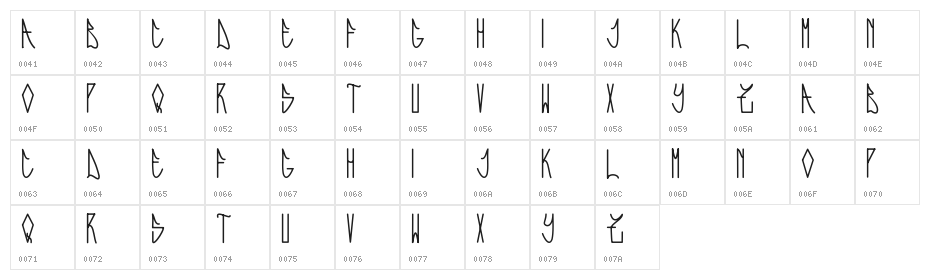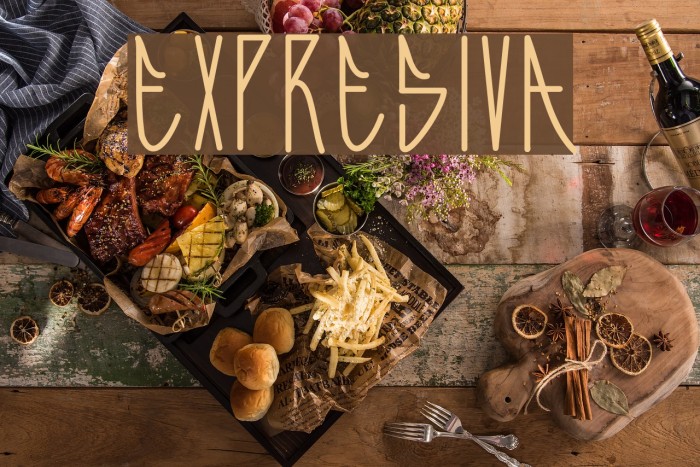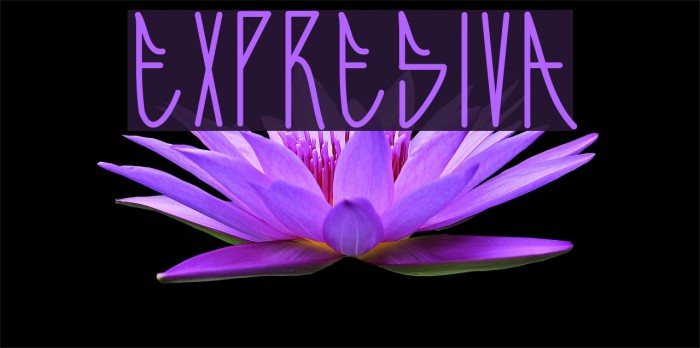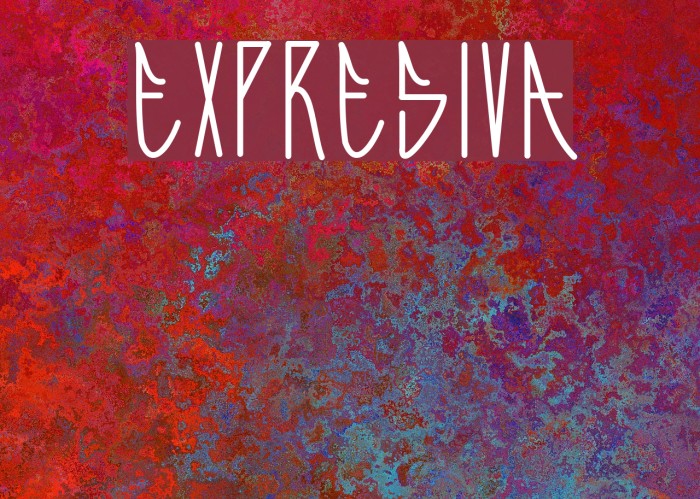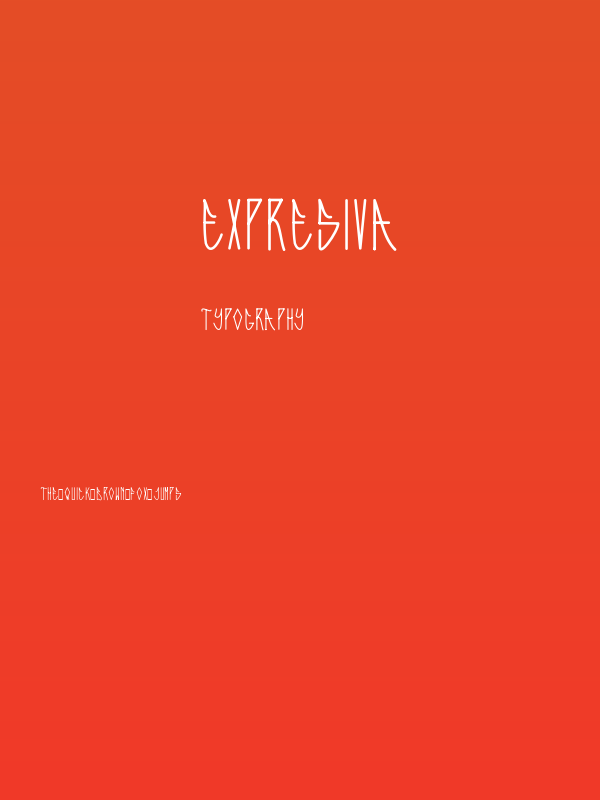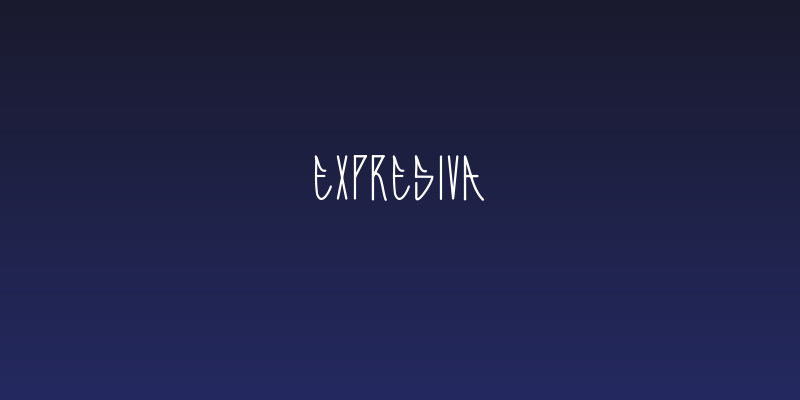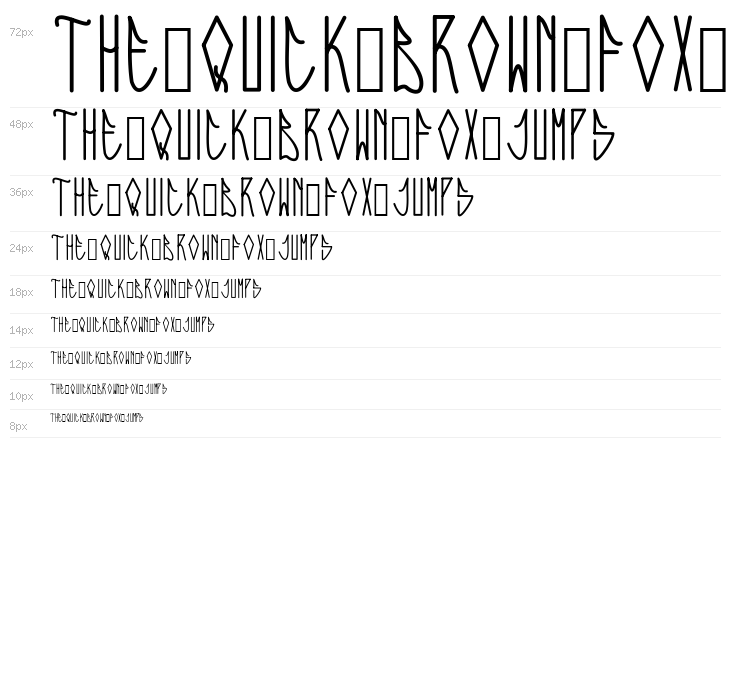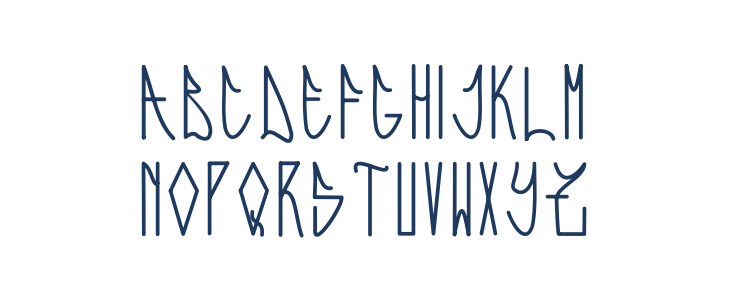
Expresiva Font
Expresiva Description
This font features a unique and expressive design, characterized by its tall, narrow letters with sharp angles and distinctive curves. The uppercase letters have a striking presence, with some characters incorporating unexpected twists and turns that add a sense of movement and dynamism. The lowercase letters maintain a similar style, ensuring consistency throughout the typeface. The overall appearance is modern and artistic, making it suitable for creative projects that require a bold statement. The font's geometric elements and clean lines contribute to its contemporary feel, while the playful nature of the letterforms adds a touch of whimsy.